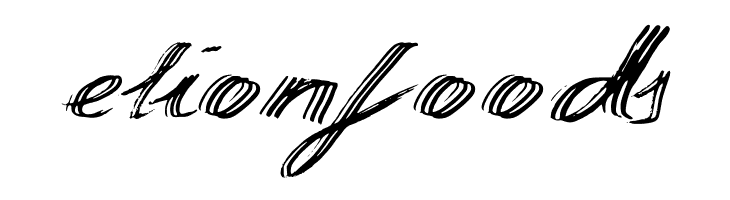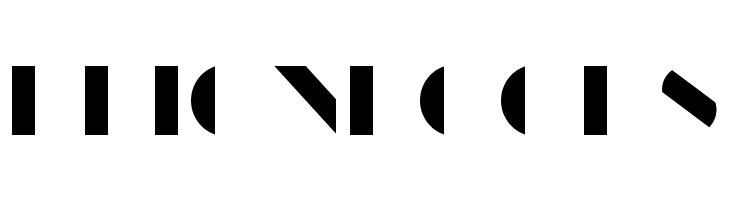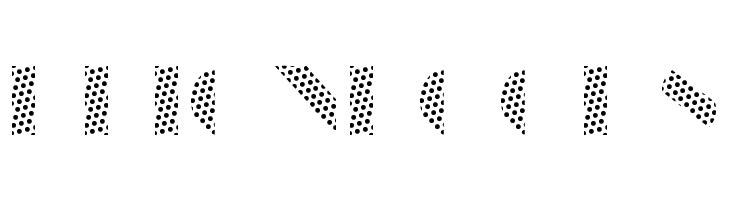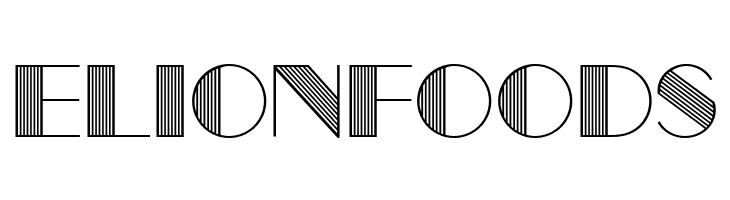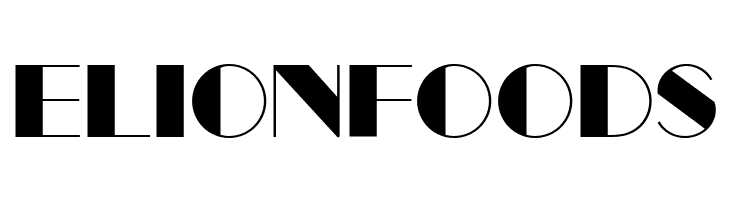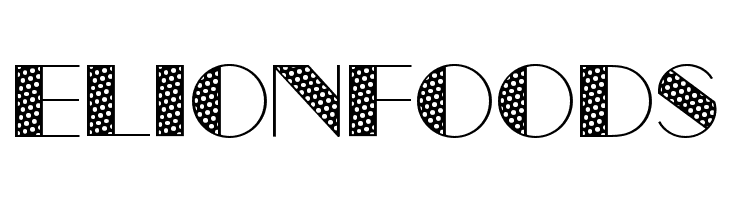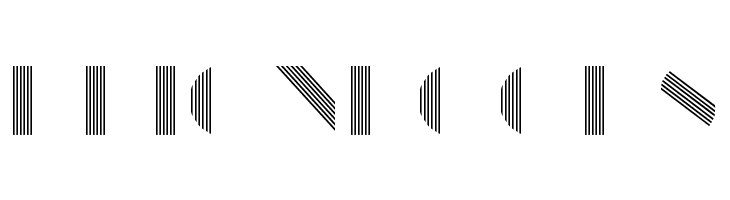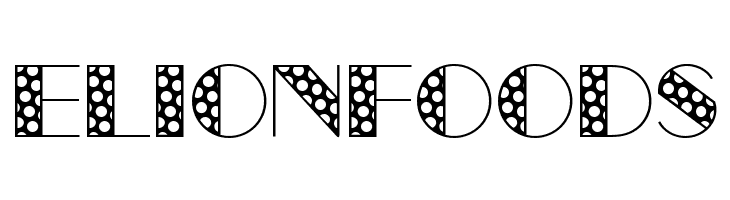
A bold, geometric font with sharp angles and solid shapes.
A modern, linear-patterned decorative font with geometric shapes.
A bold, dotted font with a modern and playful geometric design.
A bold, geometric font with a modern and artistic style.
A playful, decorative font with dotted patterns and geometric shapes.
A modern, striped font with geometric shapes and parallel lines.
A playful, dotted font with geometric shapes and bold lines, perfect for decorative use.
A bold, hand-drawn font with a scribbled texture and playful style.
A dynamic and expressive handwritten font with fluid, cursive strokes.
A dynamic, cursive script font with fluid strokes and artistic flair.